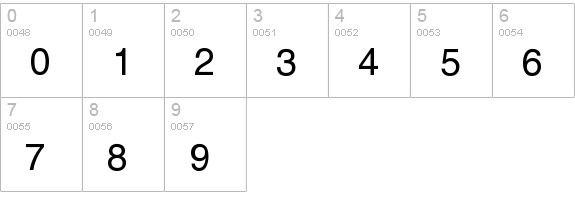
MEAN 26 Sans Font Details
MEAN 26 Sans font is a modern and sleek typeface that exudes sophistication and elegance. Its clean lines and minimalist design make it perfect for a wide range of design projects, from branding to editorial design. The font features a perfect balance between sharp corners and smooth curves, giving it a contemporary and stylish look. What sets MEAN 26 Sans font apart is that it is available for free download at FontsMarket.com. This means that you can easily access this versatile font without any cost, making it a valuable addition to your font library. Whether you are a designer looking for a fresh and trendy typeface or a business owner wanting to elevate your brand identity, MEAN 26 Sans font is a fantastic choice that won't break the bank. Download it today and start creating stunning designs with this premium font!